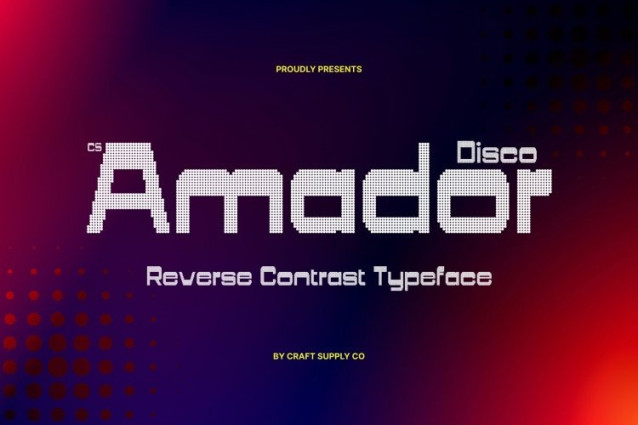
CS Amador Disco Font
CS Amador Disco Font This is a reverse contrast sans serif font that fuses masculine confidence with contemporary design precision. Defined by bold shapes and modular geometry, it delivers a powerful visual identity while the reverse contrast structure introduces a distinctive, modern twist. Each letterform stands firm and assertive, creating a strong and memorable presence.
Distinctive Rhythm with Disco-Era Energy
The reverse contrast detailing creates unexpected rhythm and balance, transforming familiar letterforms into something daring and expressive. Strong verticals and structured proportions evoke industrial precision, while subtle disco-inspired energy adds movement and vibrancy bringing a stylish, performance-driven edge to its modern expression.
Ideal for Branding, Posters, and Editorial Impact
This font excels in branding, editorial layouts, and promotional materials that demand confidence and visibility. Its commanding form makes it especially effective for logos, headlines, and titles that aim to communicate strength, innovation, and bold personality.
Versatile Typeface for Contemporary Creative Projects
From fashion and technology to culture-driven campaigns, this font adapts effortlessly across modern design contexts. The fusion of masculine form, reverse contrast character, and energetic disco flair ensures your message stands out with authority leaving a powerful, lasting impression.